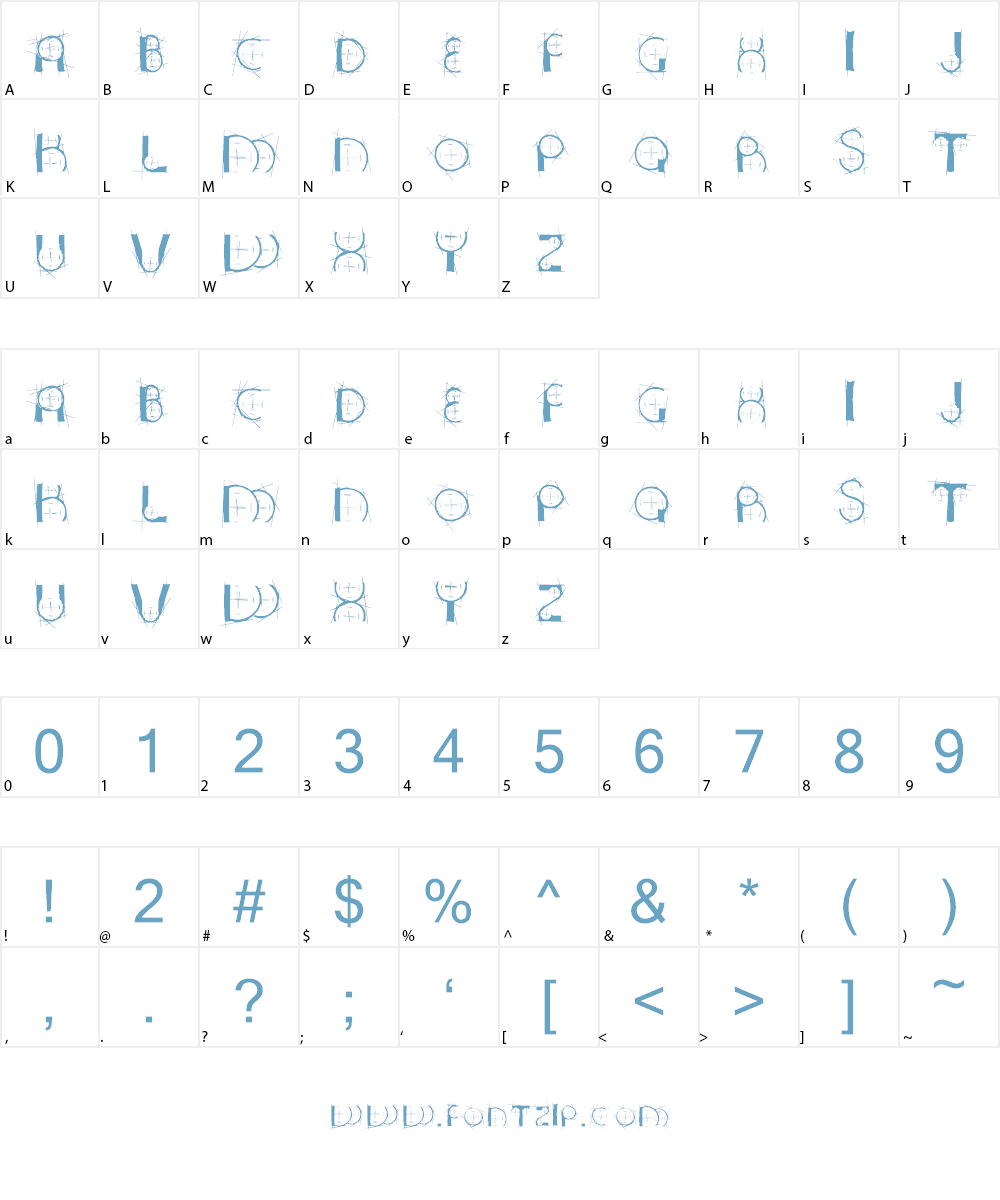
Ok. This is a DISPLAY FONT - it is caps only, and the only reason it made it this far is I thought it was funny. It doesn't really have lowercase potential...